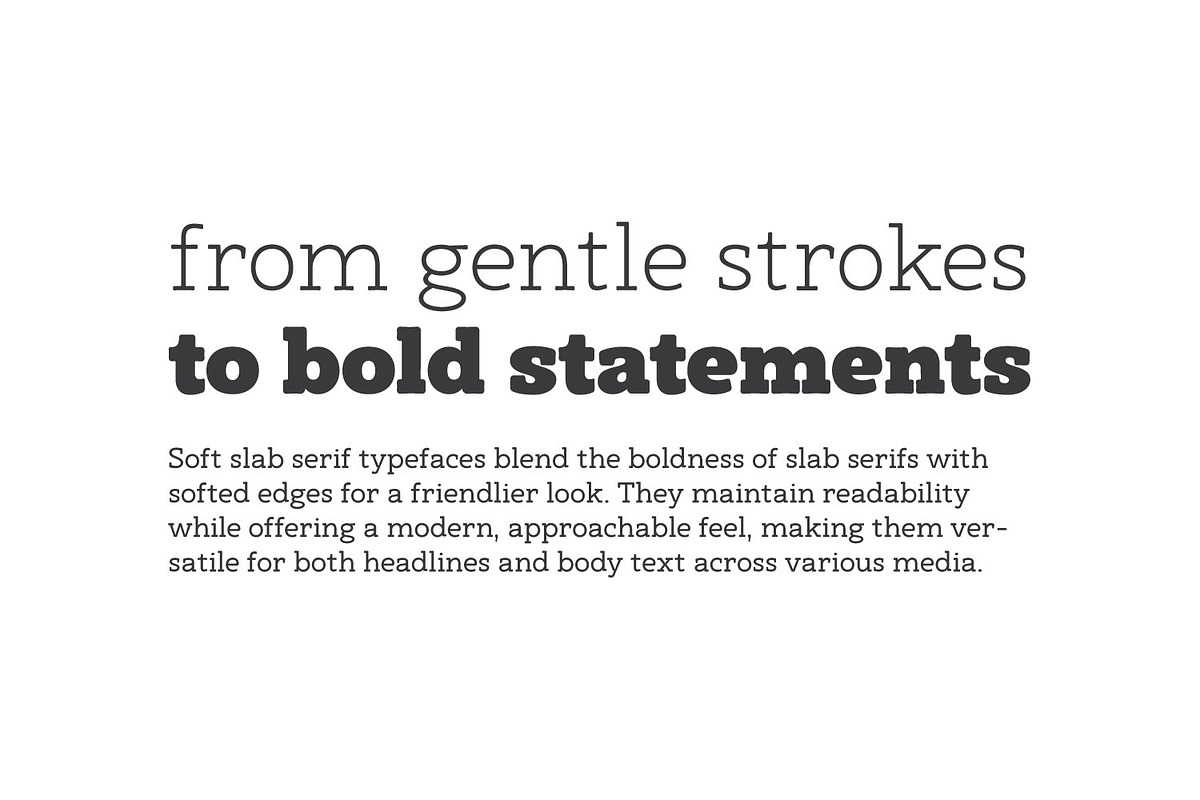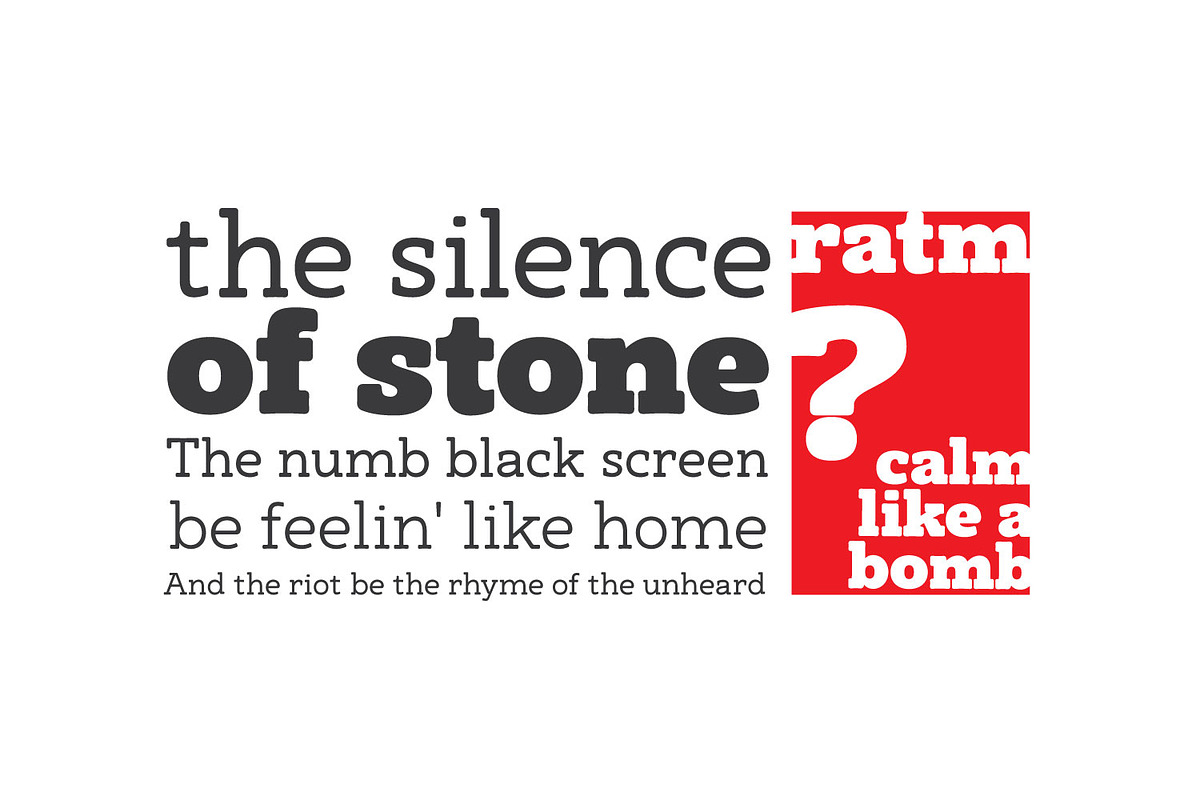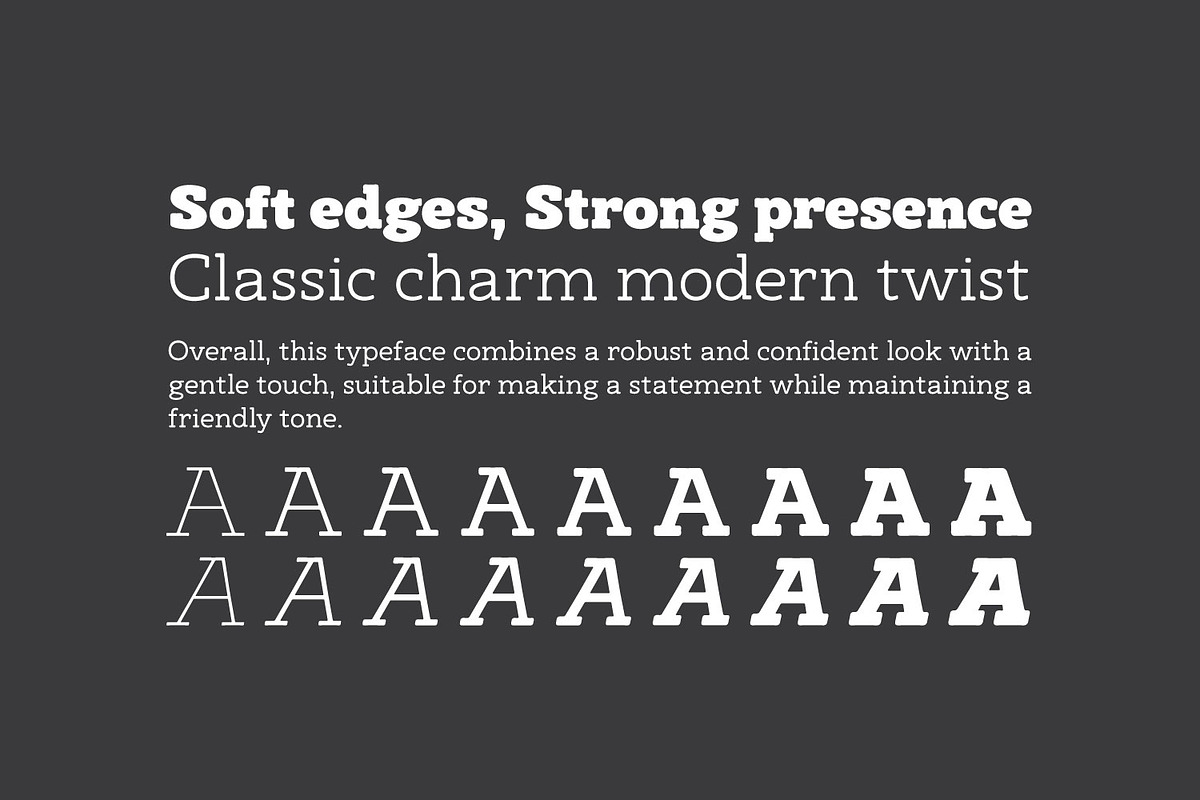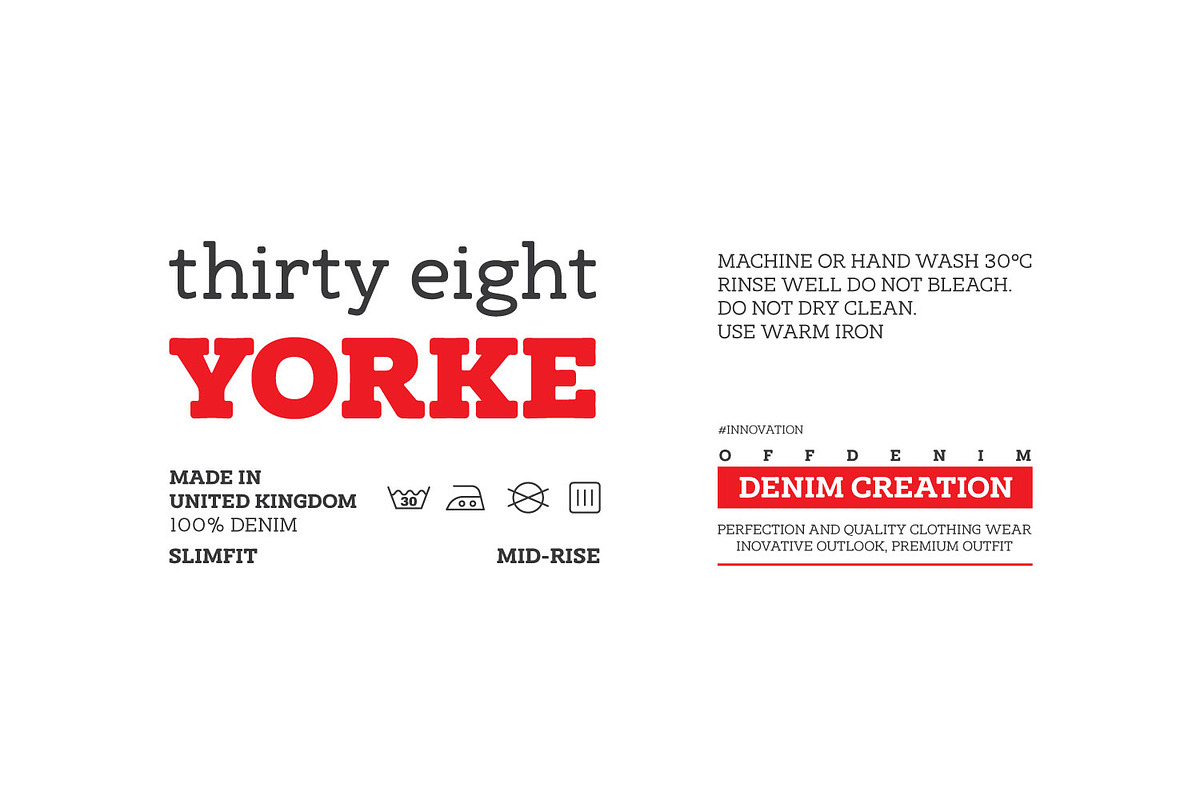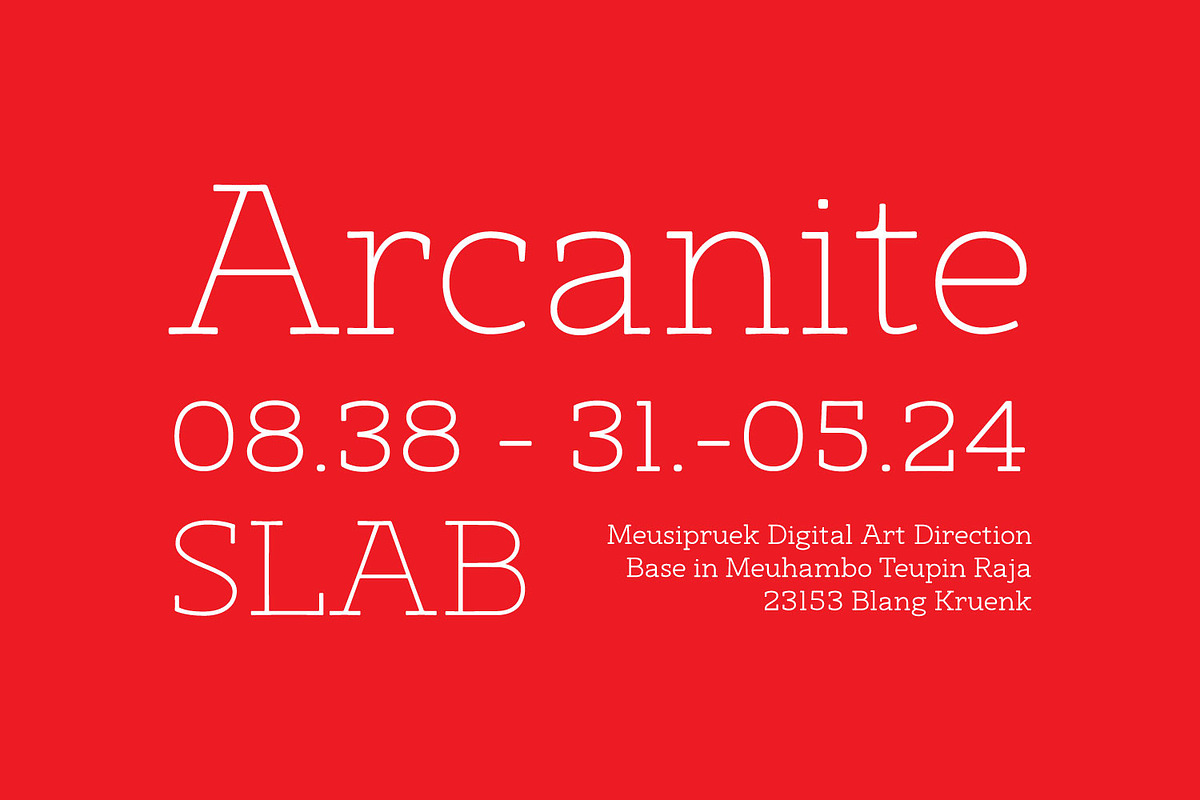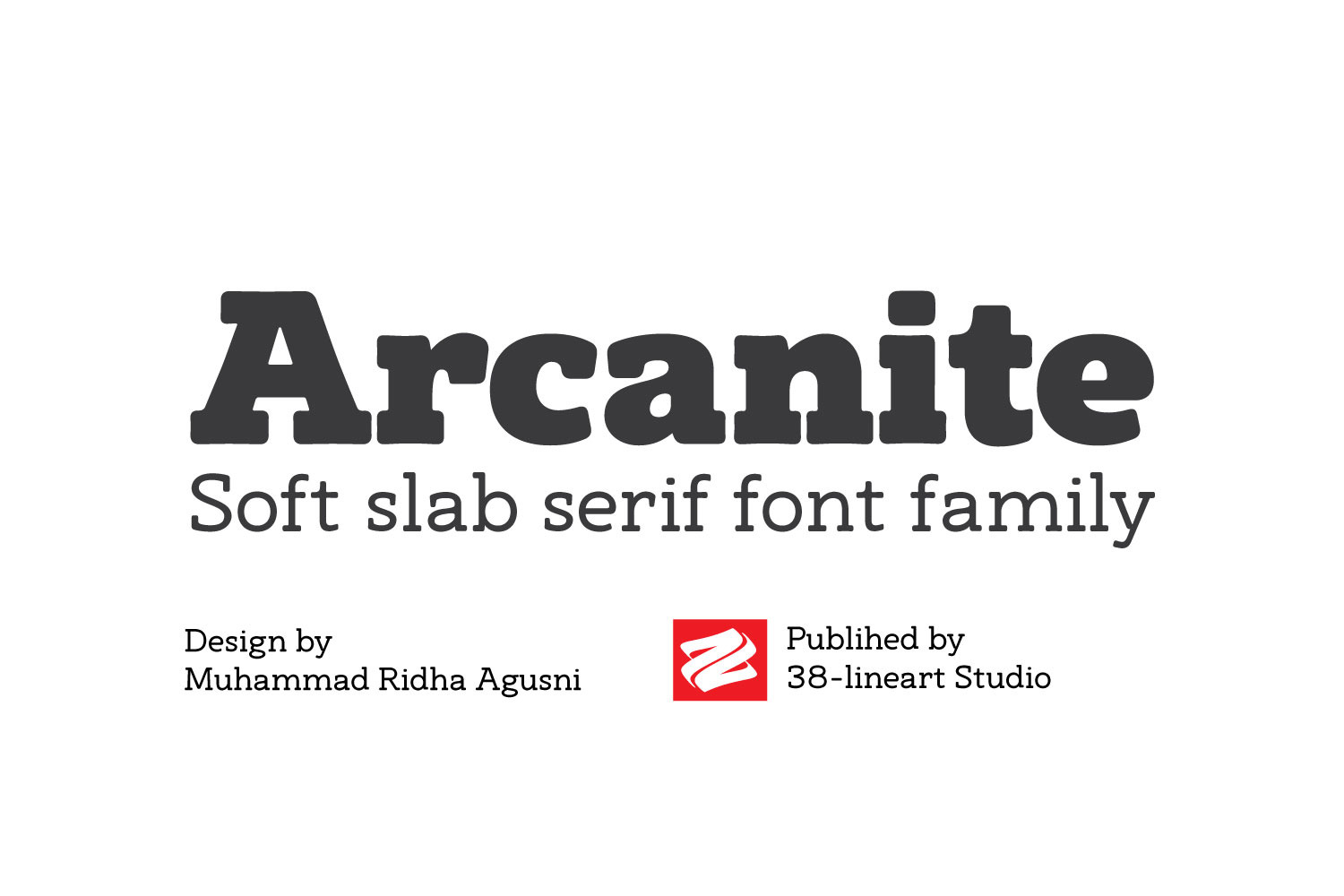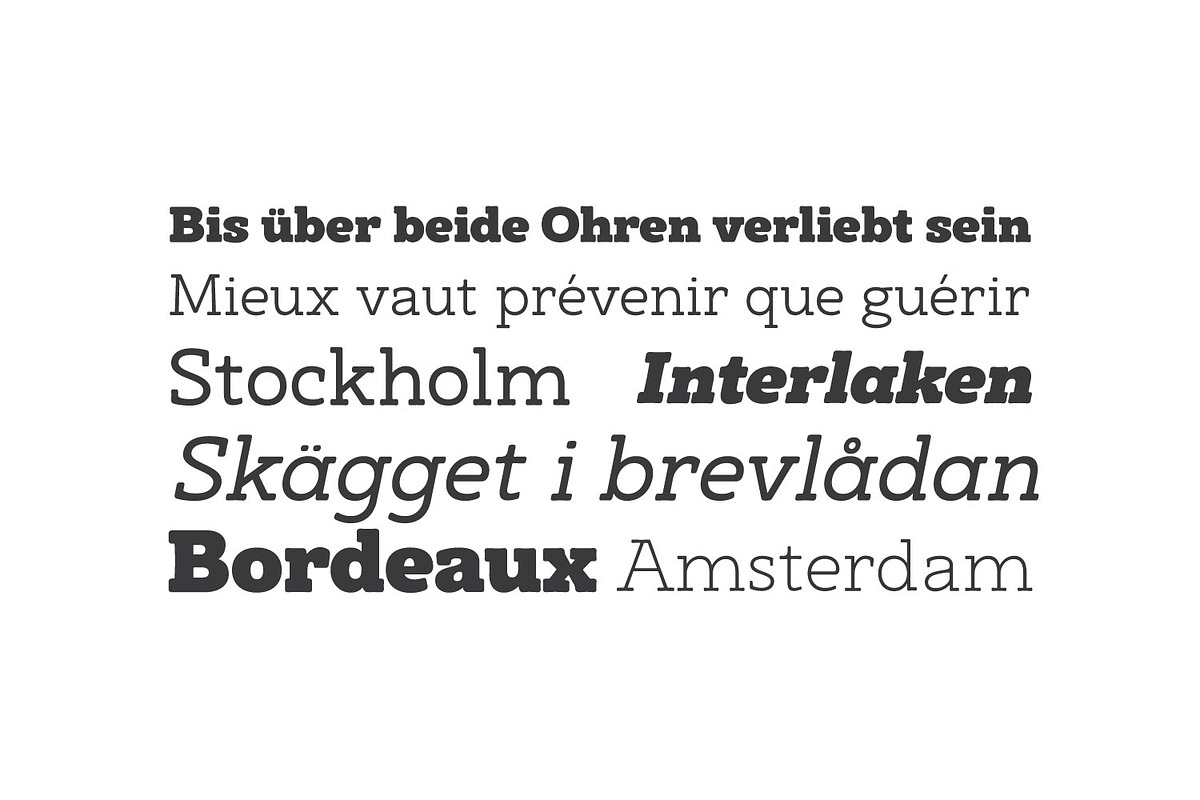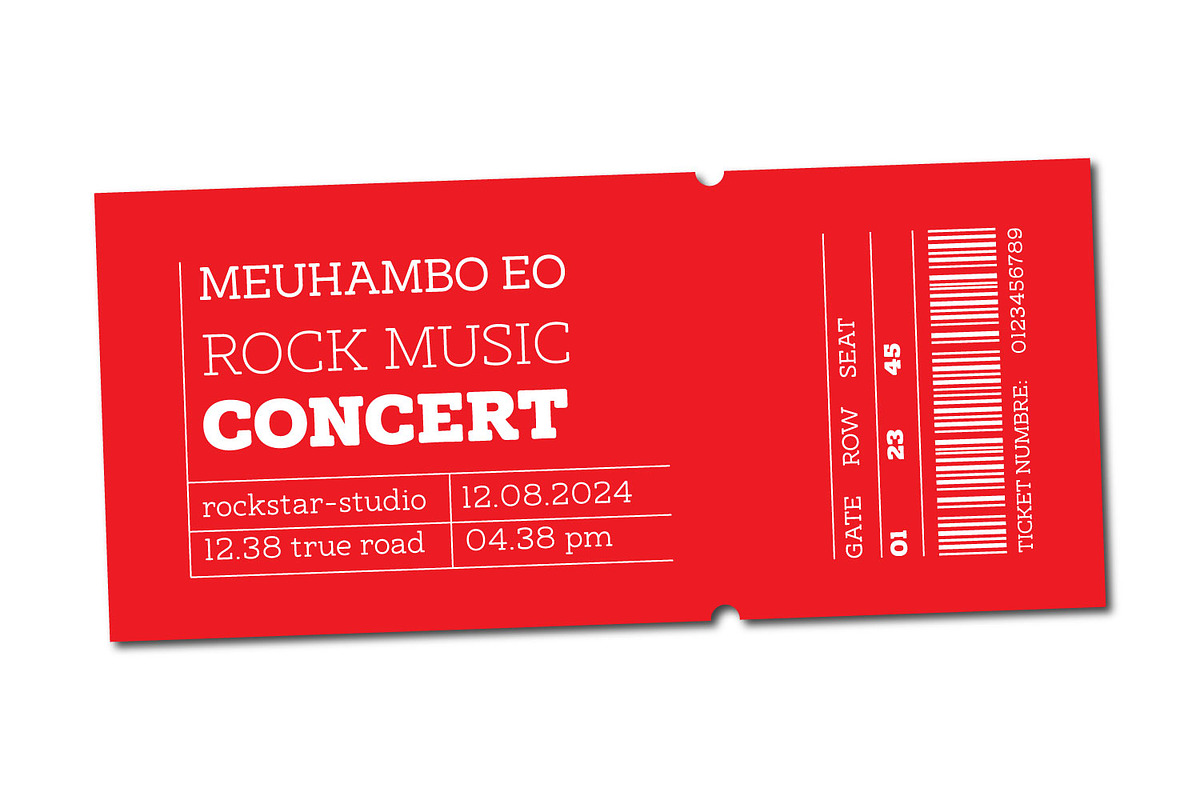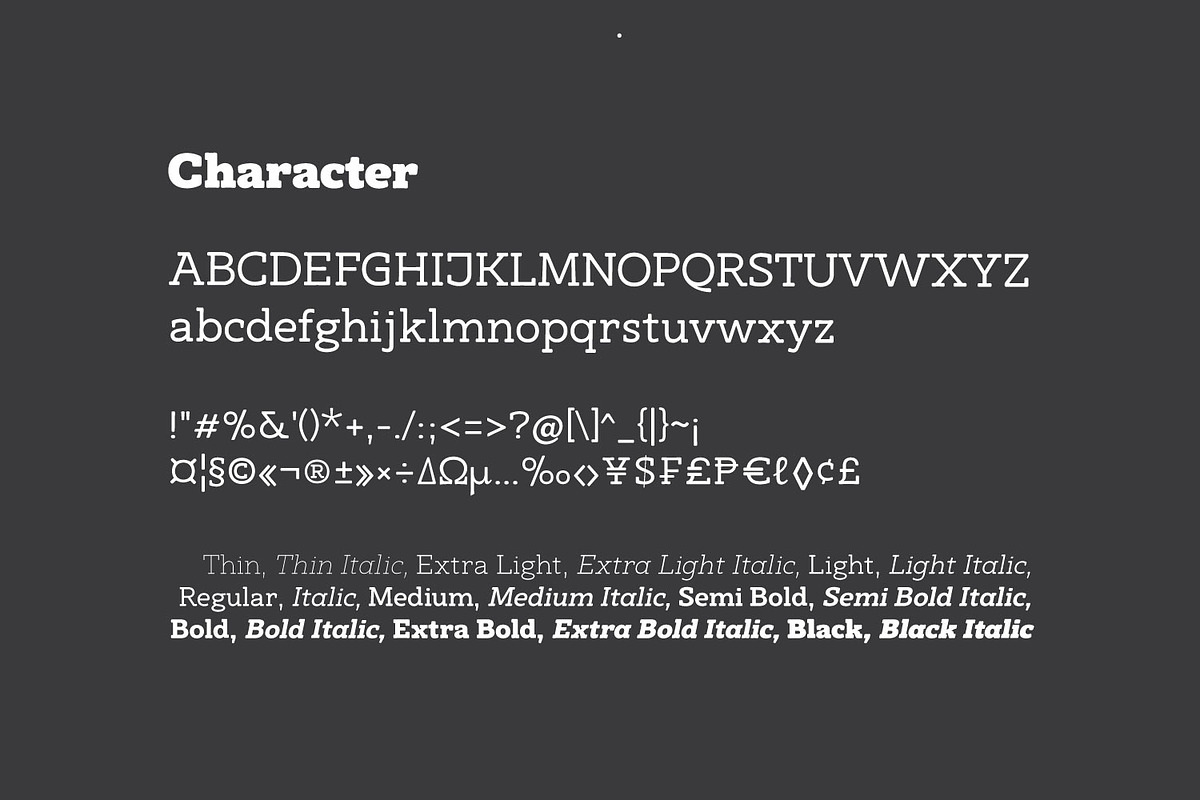
Arcanite - Soft Slab Serif Font Fami
Introducing Arcanite, a sophisticated slab serif font family that blends robust slab serifs with soft, refined edges, perfect for both text and display. Offering 18 fonts across 9 weights in regular and italic styles, Arcanite ensures versatility for any design context, from headlines to body text. Key features include its unique soft slab serifs, wide-ranging applicability from editorial to branding, and a comprehensive family providing a rich typographic palette. Designed for those seeking a harmonious balance of classic traits and modern sensibilities, Arcanite enhances readability and adds distinct character to your projects. Transform your typographic designs with Arcanite, the perfect fusion of strength and elegance.